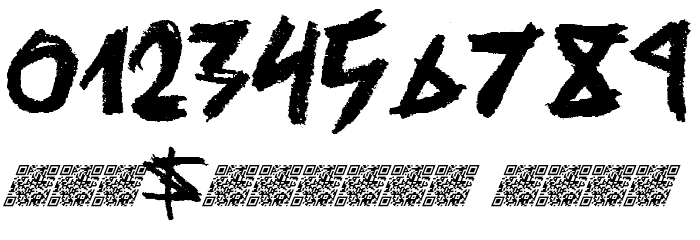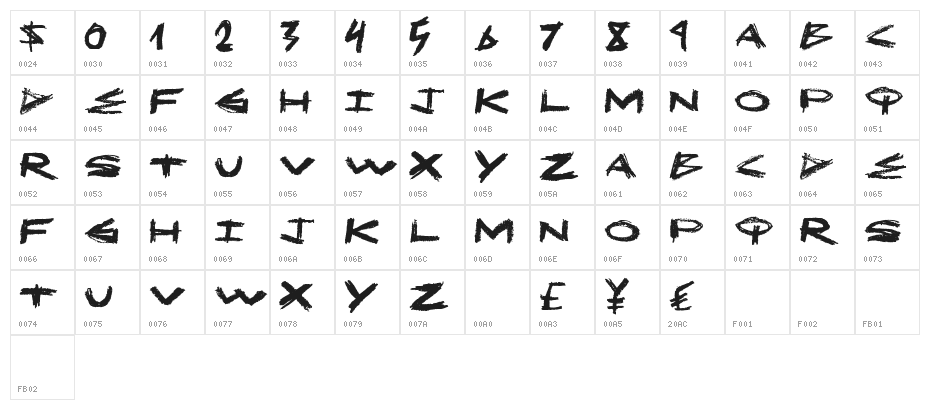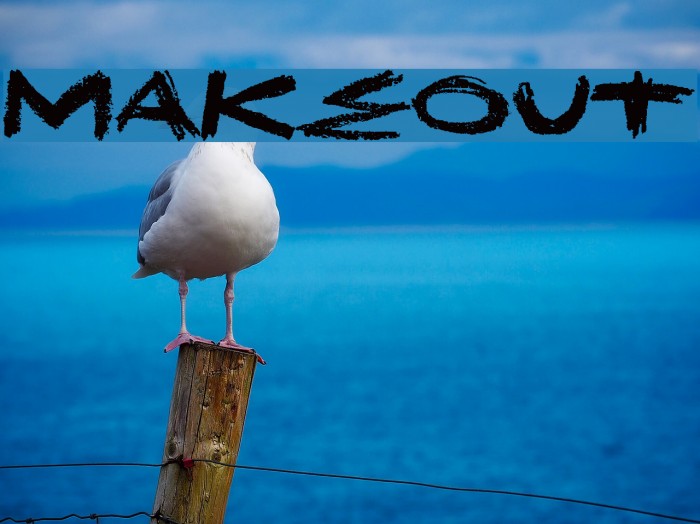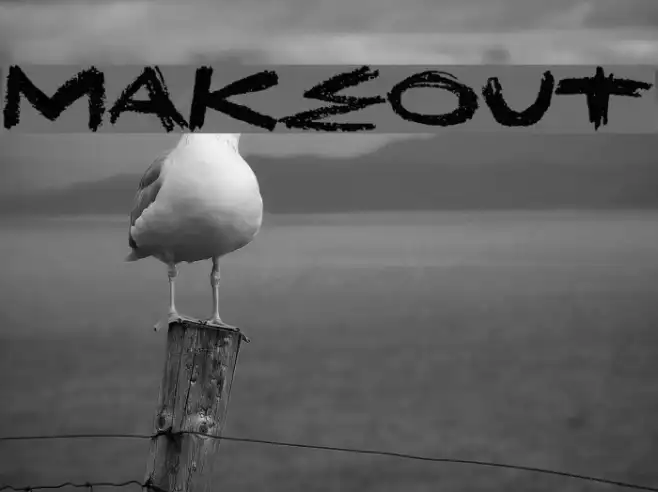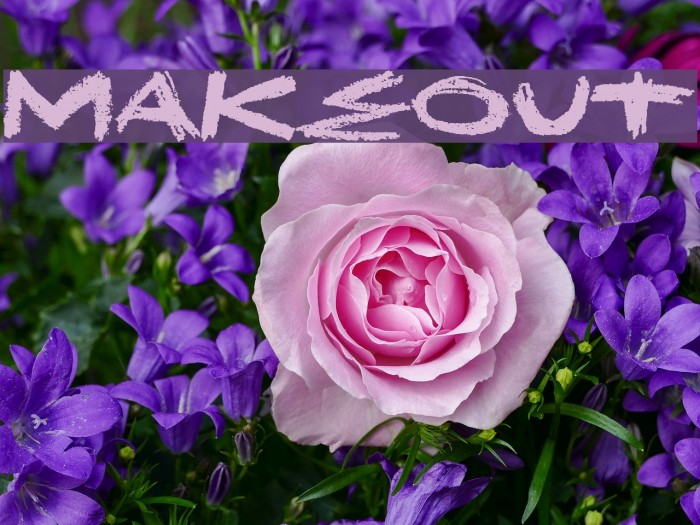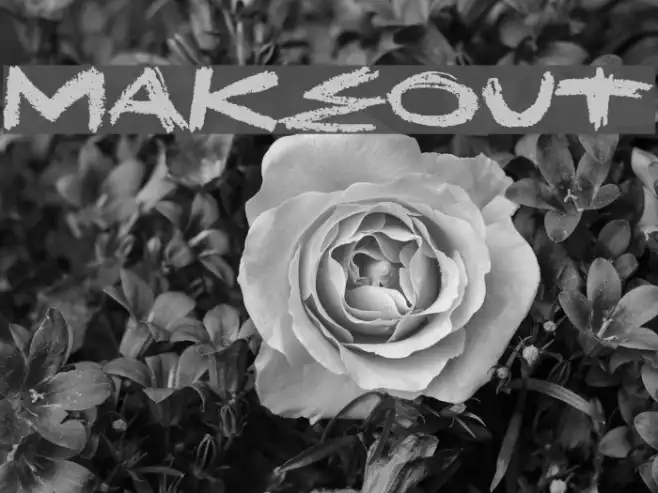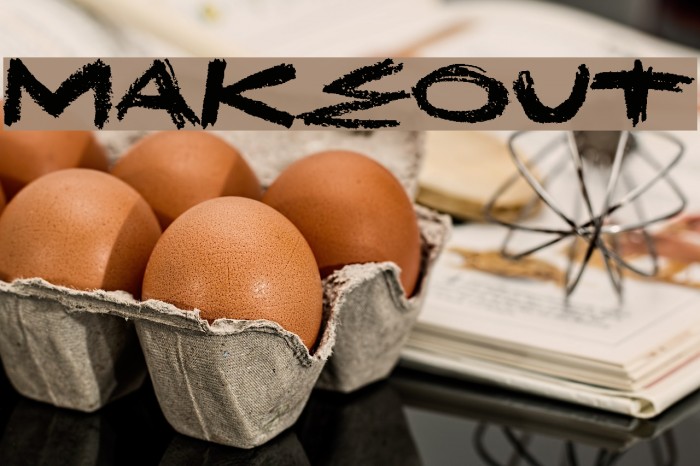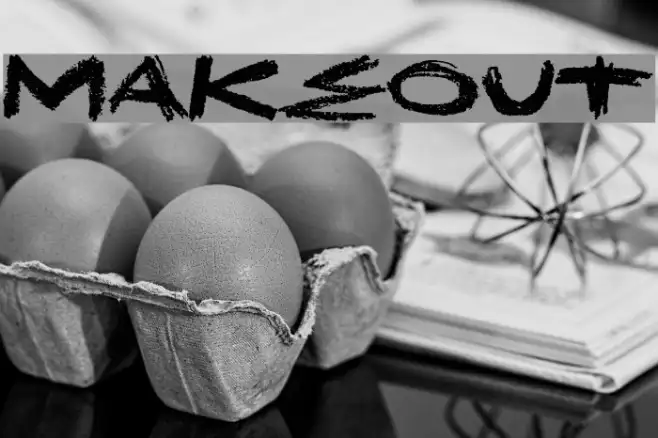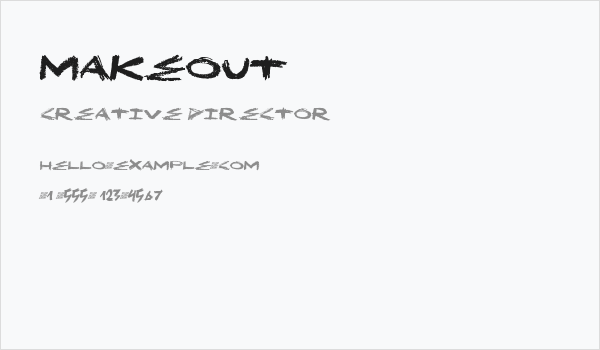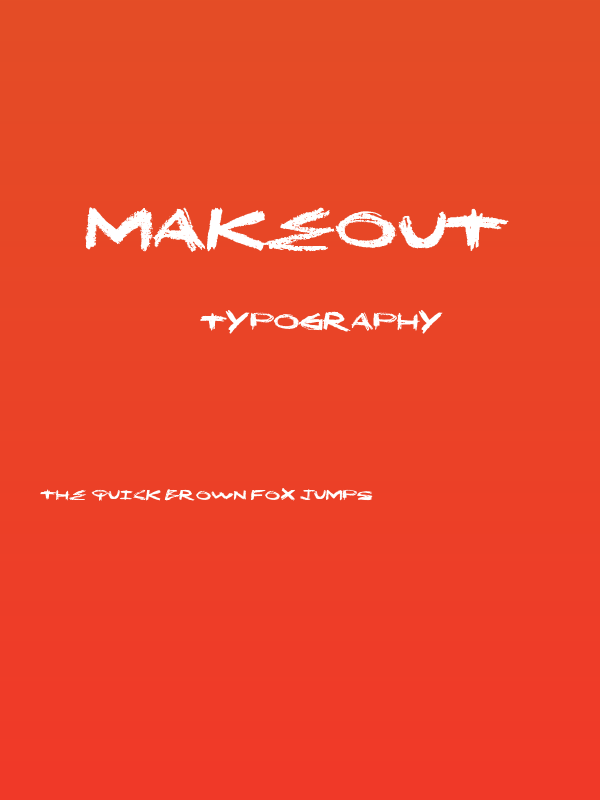
MakeOut Font
MakeOut Description
This font features a bold, edgy style with a rough, textured appearance reminiscent of graffiti or street art. The characters are dynamic and energetic, with sharp angles and irregular strokes that give a sense of movement and spontaneity. The uppercase and lowercase letters maintain a consistent style, while the numerals and special characters complement the overall aesthetic. The font's unique design makes it stand out, suitable for projects that require a strong visual impact.
Overall StyleModern, Urban
Proposed ProjectsIdeal for urban-themed designs, music album covers, posters, and branding that seeks a rebellious or edgy look.